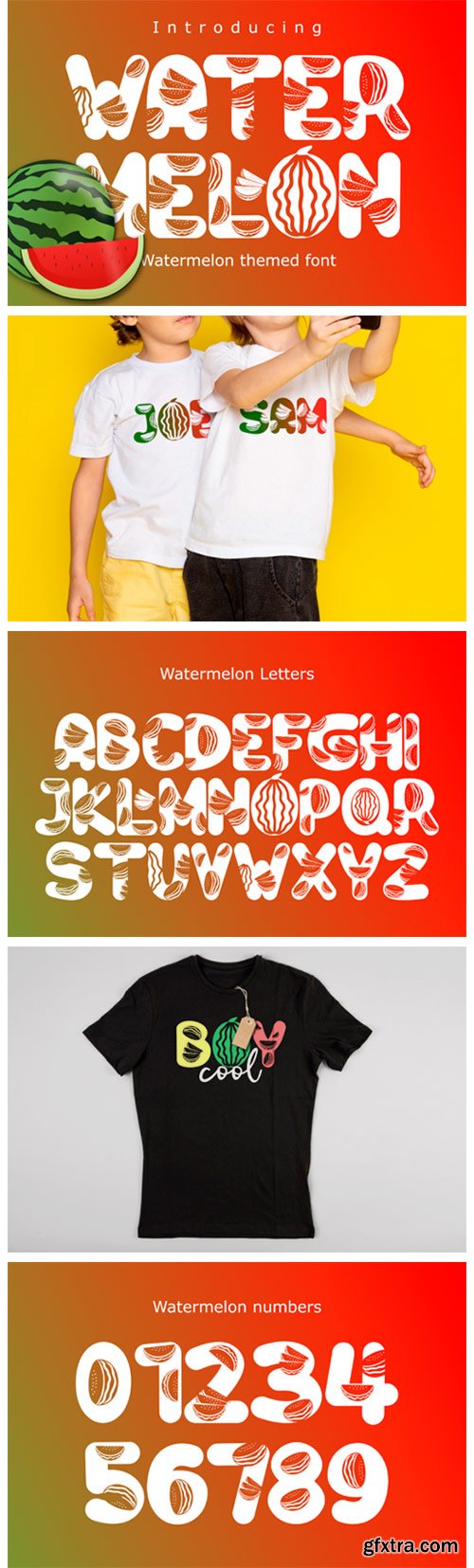
Watermelon Font
Watermelon is a bold and incredibly unique display font, featuring watermelon ornaments. Fall in love with its authentic feel and use it to create outstanding artwork!